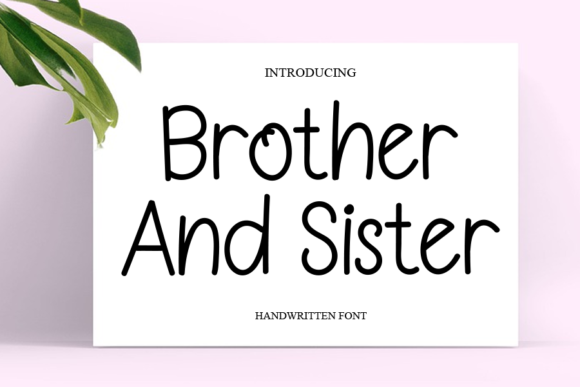
Unleash the Charm of Brother and Sister Font: A Handcrafted Script for Timeless Elegance
In the realm of digital artistry, fonts hold the power to transform words into captivating expressions of emotion and style. Among the vast array of typefaces, the Brother and Sister Font emerges as a true gem, a meticulously crafted script that exudes warmth, charm, and timeless elegance. Created by the talented HENGKIPRAMUDI, this font family embodies the essence of handwritten letters, bringing a personal and realistic touch to your creative endeavors.
Brother and Sister Font: A Symphony of Beauty and Functionality
This enchanting script font seamlessly blends aesthetics and functionality, making it a versatile choice for a wide range of design projects. Whether you're crafting heartfelt wedding invitations, creating eye-catching social media graphics, or designing whimsical posters and flyers, Brother and Sister Font will elevate your creations to new heights of sophistication. Its delicate strokes and graceful curves lend an air of authenticity and charm that will captivate your audience.
The Allure of Brother and Sister Font for Wedding Videos
For those seeking to create wedding videos that exude an intimate and romantic ambiance, Brother and Sister Font stands as the ultimate choice. Its elegant letterforms possess an inherent charm that perfectly complements the tender emotions and joyful moments captured in wedding footage. Whether you're creating a heartwarming montage of the couple's love story or a dynamic highlight reel of their special day, Brother and Sister Font will add a touch of cinematic magic that will leave a lasting impression on viewers.
Brother and Sister Font: A Journey into a World of Creativity
With Brother and Sister Font at your disposal, embark on a creative journey where your imagination knows no bounds. Explore the endless possibilities of this captivating script font, allowing your words to dance across the screen with grace and elegance. From heartfelt love letters and personalized greeting cards to captivating social media posts and eye-catching marketing materials, Brother and Sister Font will transform your creative vision into a tangible reality.